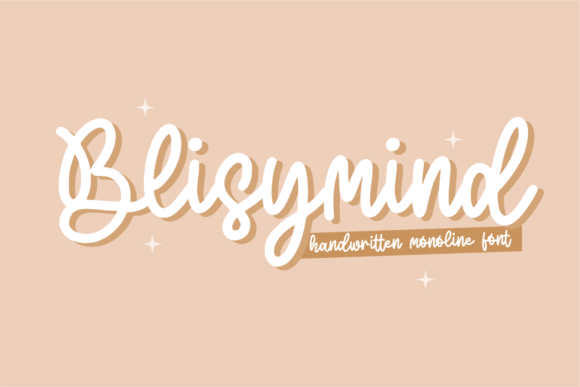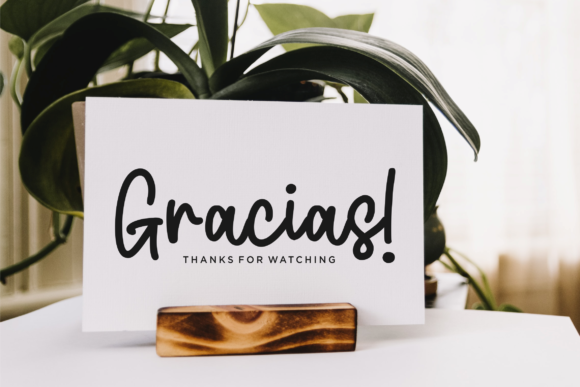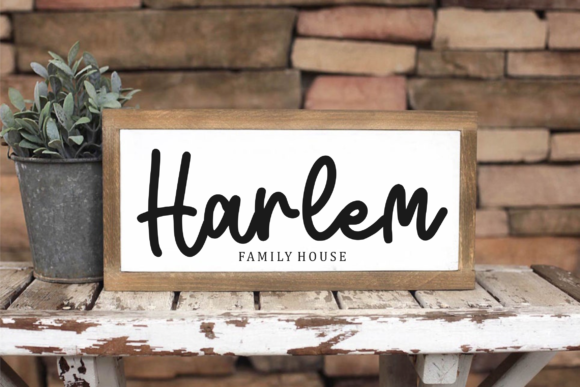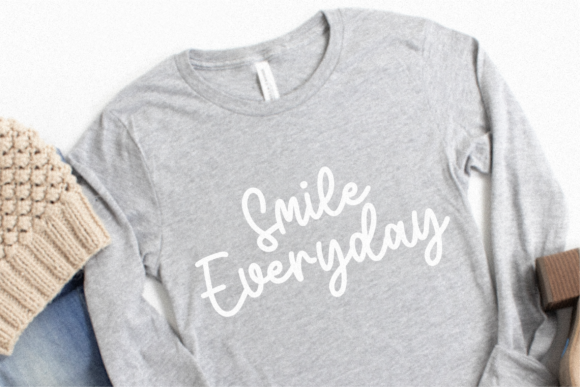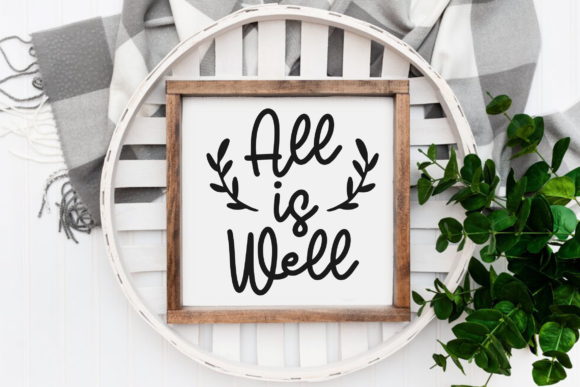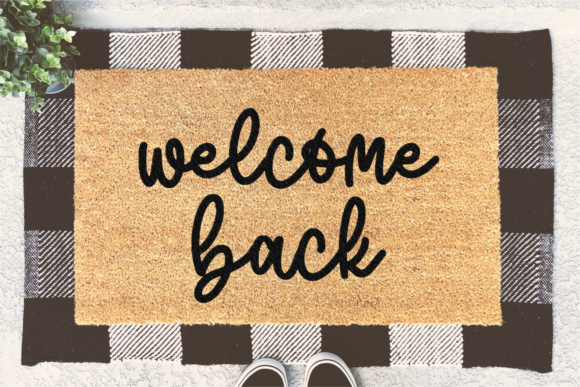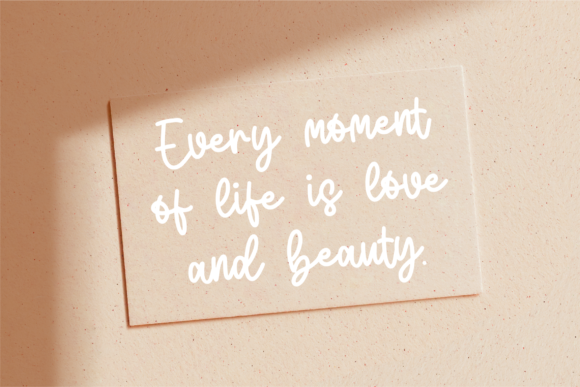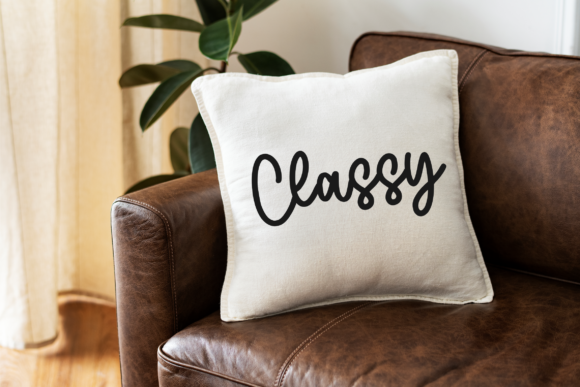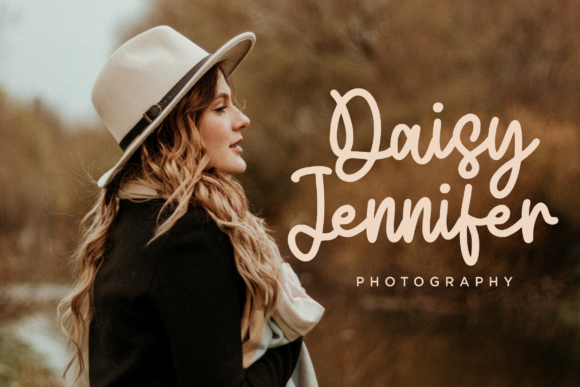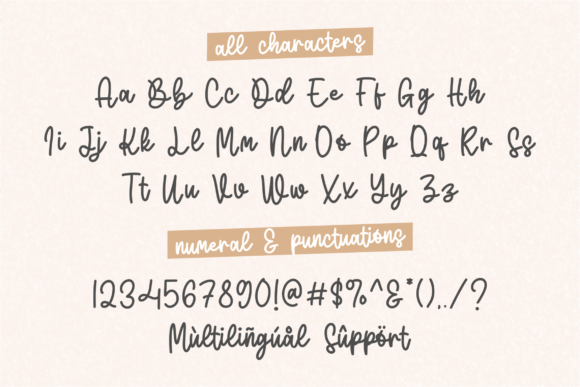
Blisymind Font
About Blisymind Font
“Blisymind” is an elegant and dainty handwritten font that exudes sophistication and charm. This font is adorned with sweet and delicate swashes, adding an extra layer of visual appeal. Its original and refined appearance makes it a versatile choice that can complement a wide array of creative concepts, from letterheads and titles to various forms of stationery.
The font’s elegant and dainty letterforms bring a sense of grace and refinement to your designs. Whether you’re working on professional letterheads, eye-catching titles, or beautifully designed stationery, “Blisymind” has the ability to infuse your creations with a touch of timeless beauty and visual allure.
The inclusion of delicate swashes enhances the font’s visual impact and creativity. These details further elevate the font’s originality and make it suitable for a range of design applications.
In essence, “Blisymind” is more than just a font—it’s a creative tool that enhances your ideas with its elegant and dainty handwritten style. Its ability to convey sophistication and its potential to transform everyday designs into pieces of art make it a valuable asset for designers seeking to create captivating and visually enchanting designs that leave a lasting impression.